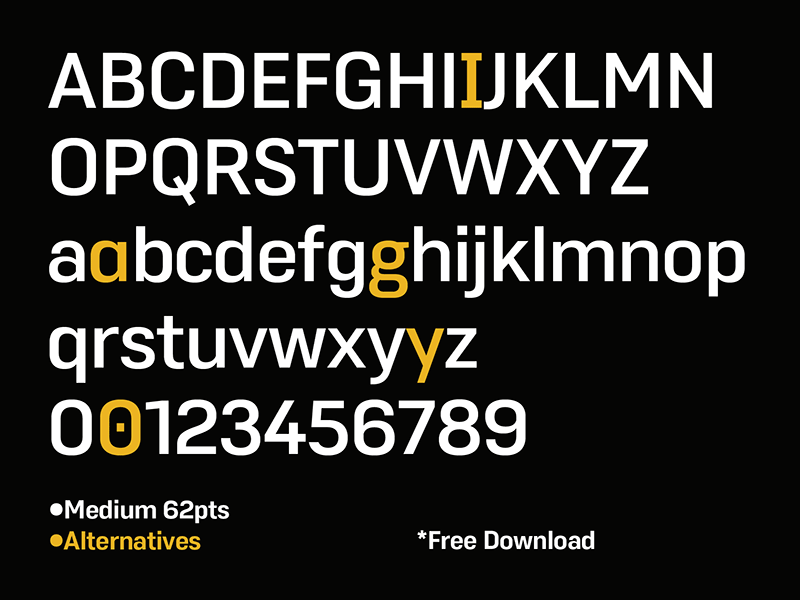
Font name: | Duran |
Author: | The Northern Block |
Note by The Northern Block | |
Duran is a strong, versatile geometric sans with industrial quality. Inspired by technical style letterforms with simple construction, the typeface is useful in both large format and body text. Its compact lateral shape helps save space across layouts and is good to go across a wide range of modern applications. |